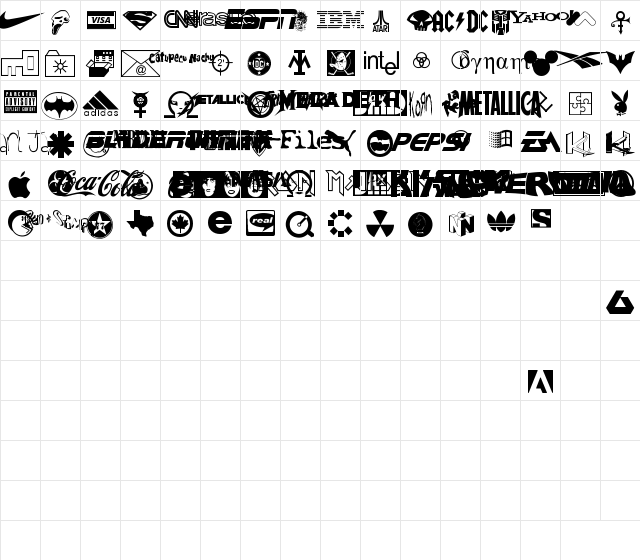
Famous Logos Regular Free Font
Famous Logos Regular
Foundry: jmd Fonts
Designer: jmd Fonts - jmd
Famous Logos Family
Design Context for Famous Logos
Famous Logos is a composed and adaptable typeface that performs quietly and consistently across a wide range of design contexts.